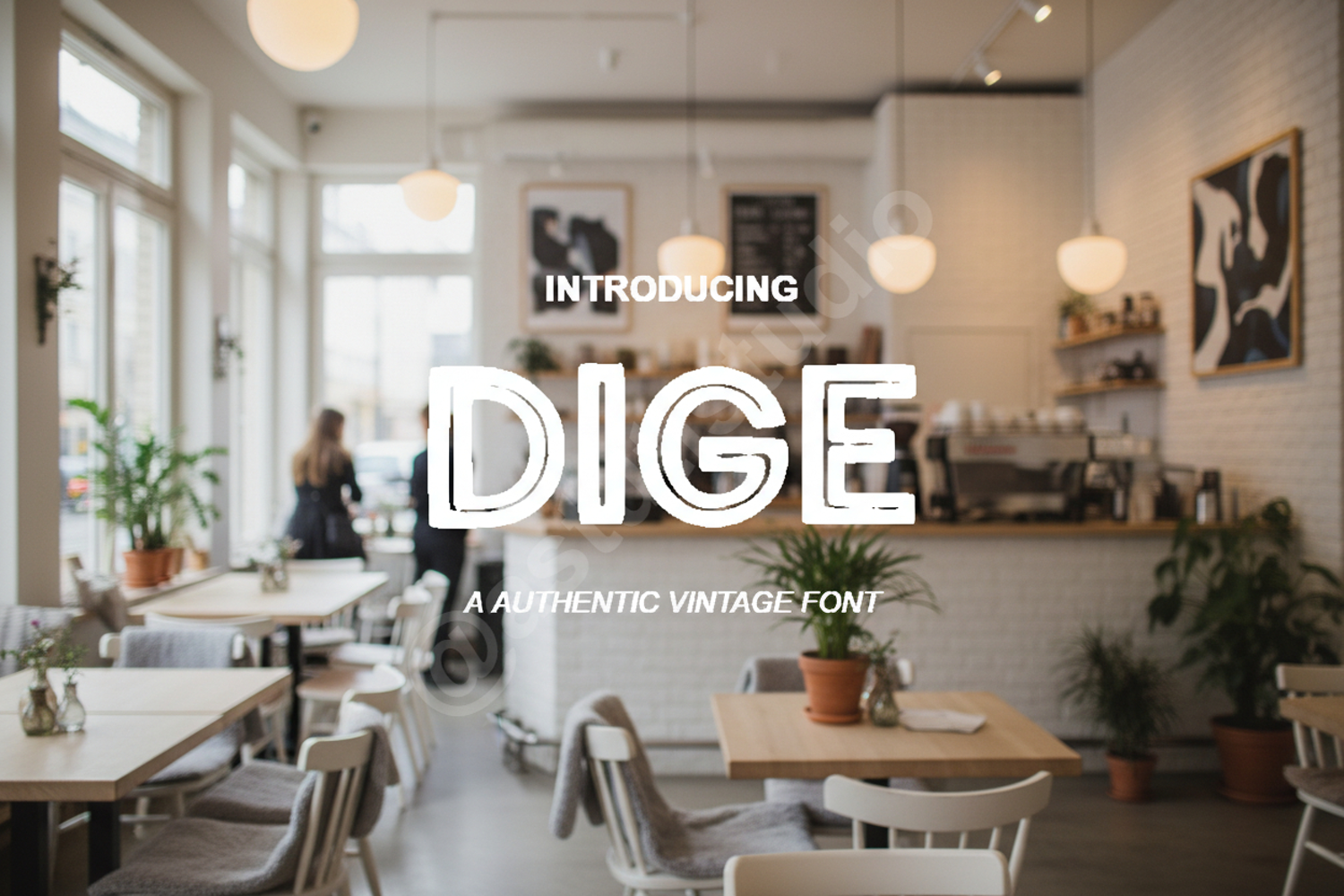
Dige - Sophisticated Modern Sans Serif
Dige
Elevate your creative projects with Dige, a premium sans serif typeface that balances minimalist design with professional elegance. Crafted with precision, Dige offers a clean and versatile aesthetic that ensures your message is delivered with clarity and style. Whether you are working on a high-end corporate identity or a sleek digital interface, this font provides the perfect foundation for timeless design.
- Premium Branding and Identity: Create a lasting impression with logos and brand collateral.
- Editorial Design: Perfect for magazine layouts, book covers, and high-end brochures.
- Digital Media: Enhance website headers, UI/UX design, and social media graphics.
- Advertising: Ideal for minimalist posters, signage, and promotional materials.
- Stationery: Excellent for business cards, invitations, and professional letterheads.